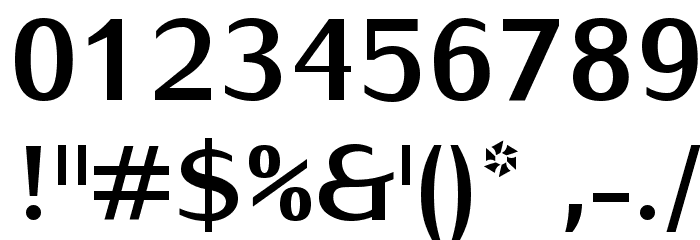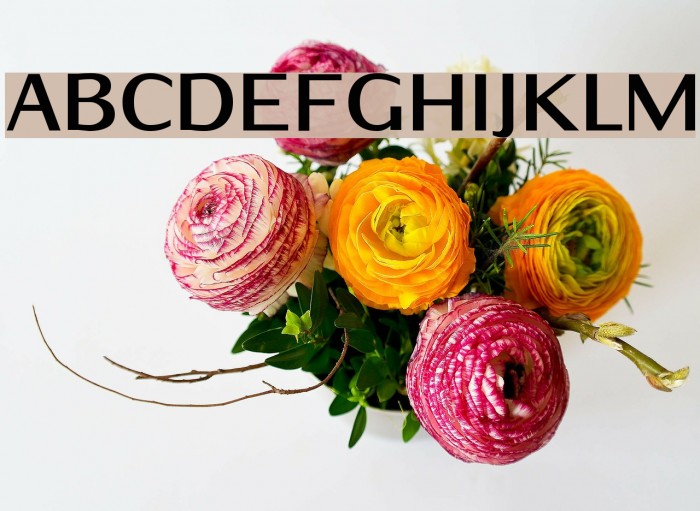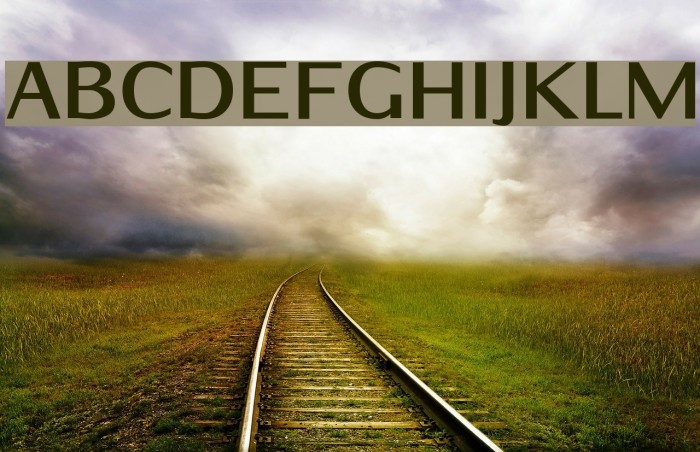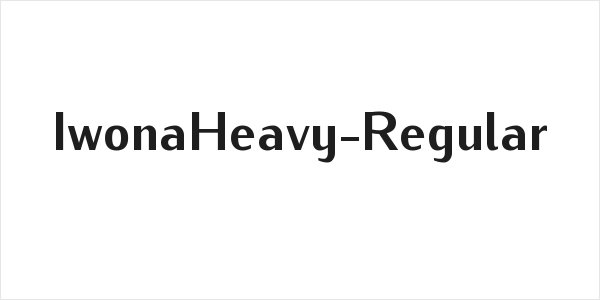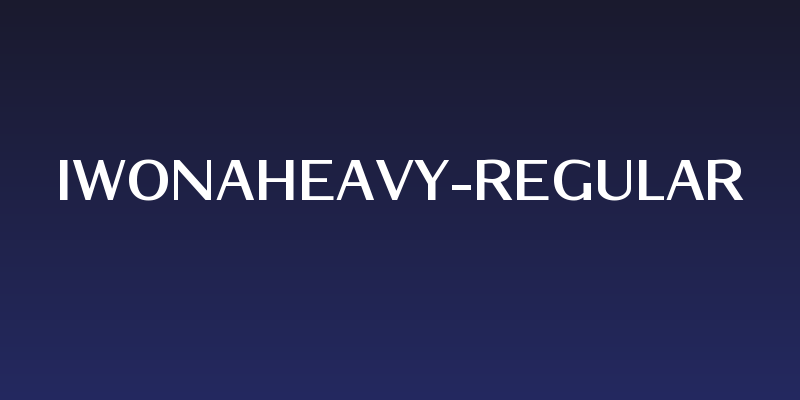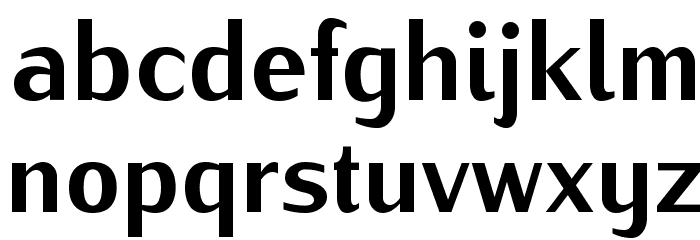
IwonaHeavy-Regular Font
IwonaHeavy-Regular Description
This typeface features a bold and robust design, characterized by its strong geometric shapes and clean lines. The uppercase letters are uniform in height, providing a sense of stability and balance. The lowercase letters maintain a consistent x-height, contributing to readability and a harmonious appearance. The numerals are clear and distinct, ensuring legibility in various contexts. Special characters are well-integrated, matching the overall aesthetic of the typeface. The design is modern and versatile, suitable for a wide range of applications.
| Proposed Projects | Ideal for branding, headlines, posters, and digital media where a strong visual impact is needed. |